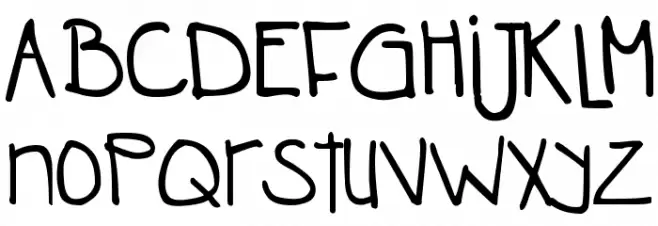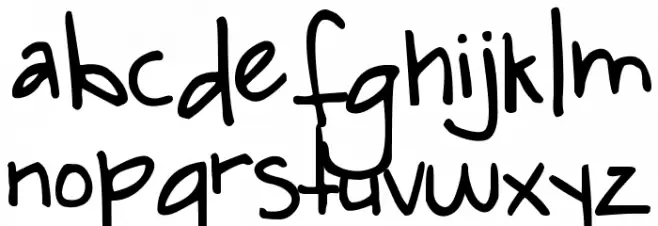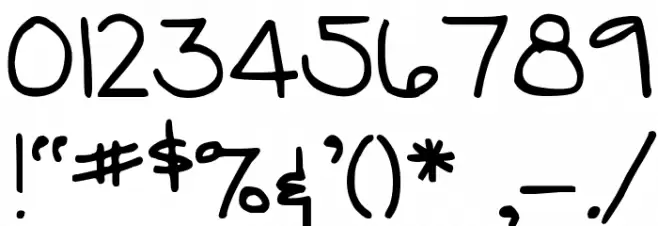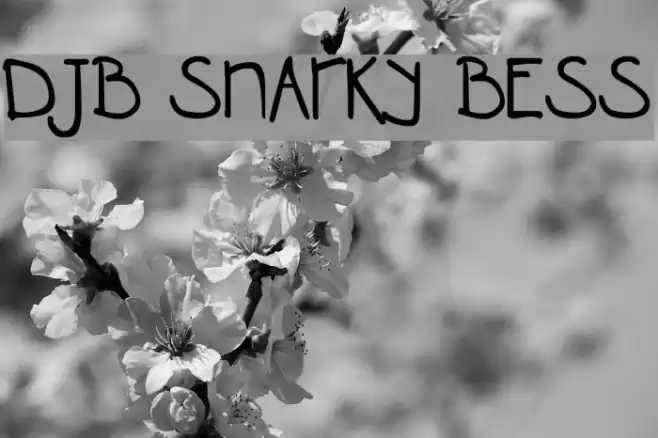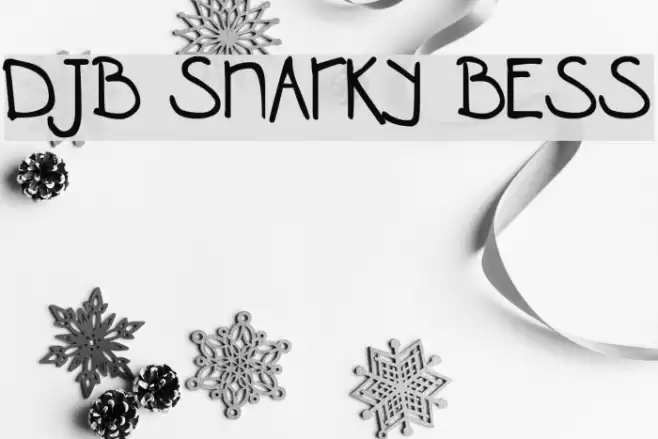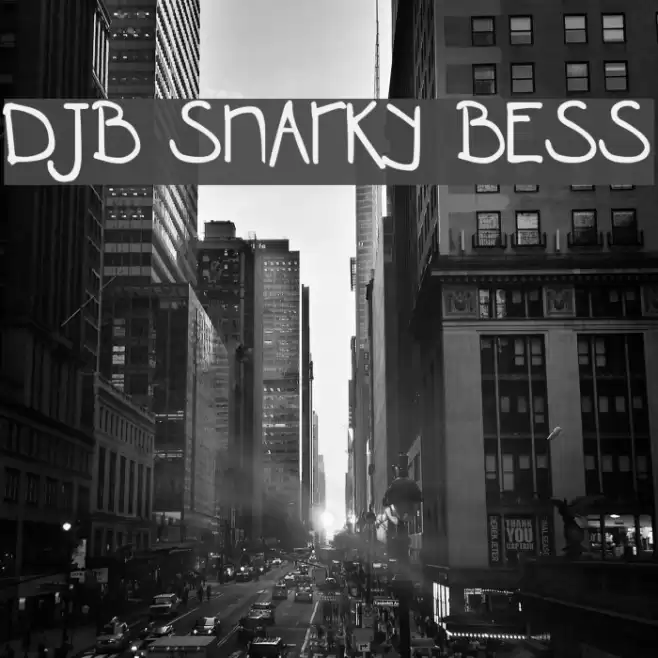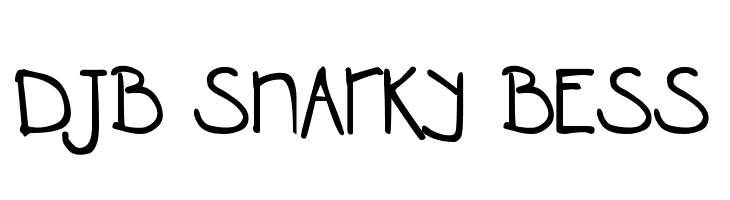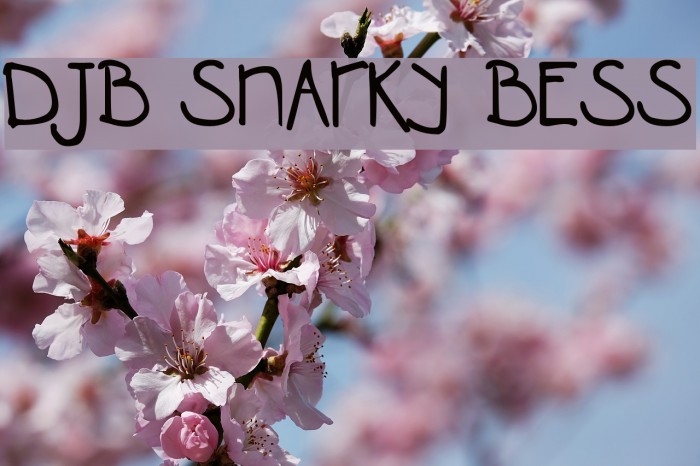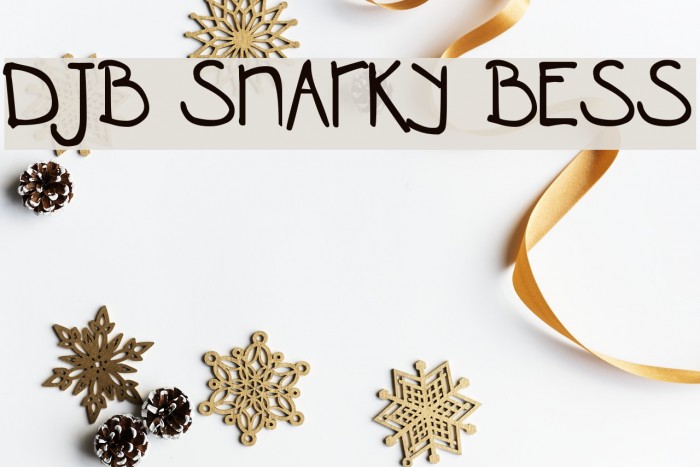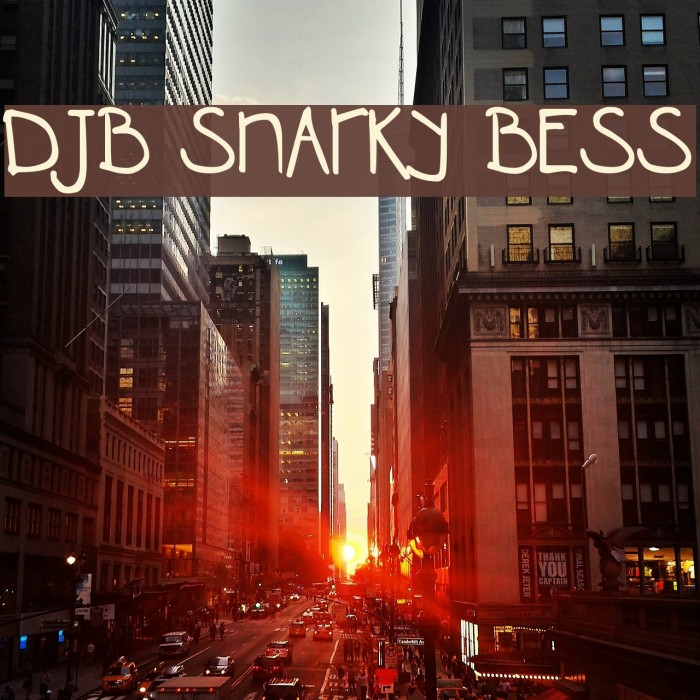
DJB SNARKY BESS
This playful and quirky handwritten font features a casual and informal style, characterized by its uneven strokes and slightly irregular letterforms. The uppercase letters are bold and prominent, while the lowercase letters maintain a consistent flow, adding a touch of whimsy. The numbers and special characters complement the overall design, making it versatile for various creative projects. The font's unique personality makes it ideal for projects that require a personal touch or a fun, lighthearted vibe.
A playful handwritten font with quirky, uneven strokes and a casual style.
- Proposed Projects: Ideal for greeting cards, children's books, playful branding, and social media graphics.
- Overall Style: Casual, Playful
- Use Case: Headlines, Informal text, Creative projects